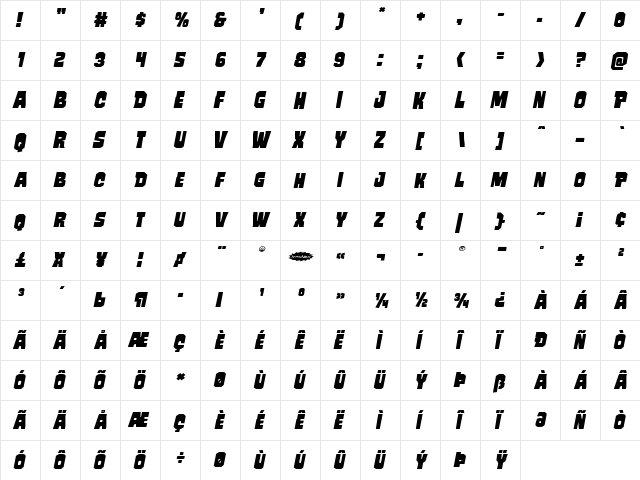
Mindless Brute Expanded Italic Expanded Italic
Design Context for Mindless Brute Expanded Italic Typeface
Mindless Brute Expanded Italic is a composed and adaptable typeface that performs quietly and consistently across a wide range of design contexts. Its italic angle brings a sense of urgency and motion to the letterforms.
Pro Tip: Use Mindless Brute Expanded Italic for emphasis, pull quotes, and subheadings where its slanted energy can add rhythm to the layout.